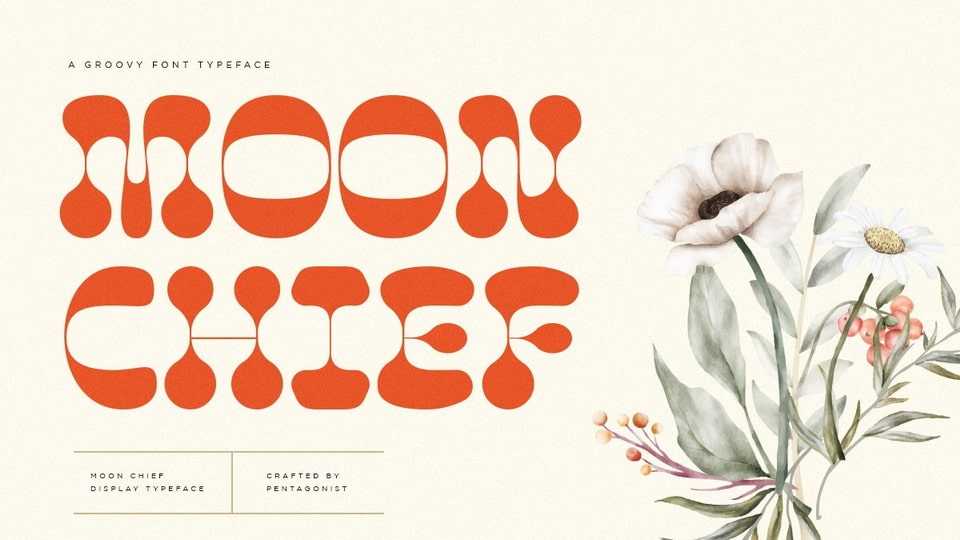
Download Moon Chief font, a groovy display typeface inspired by retro and vintage styles. Moon Chief font is a perfect choice for vintage or old-school themes.
Designer: Pentagonistudio